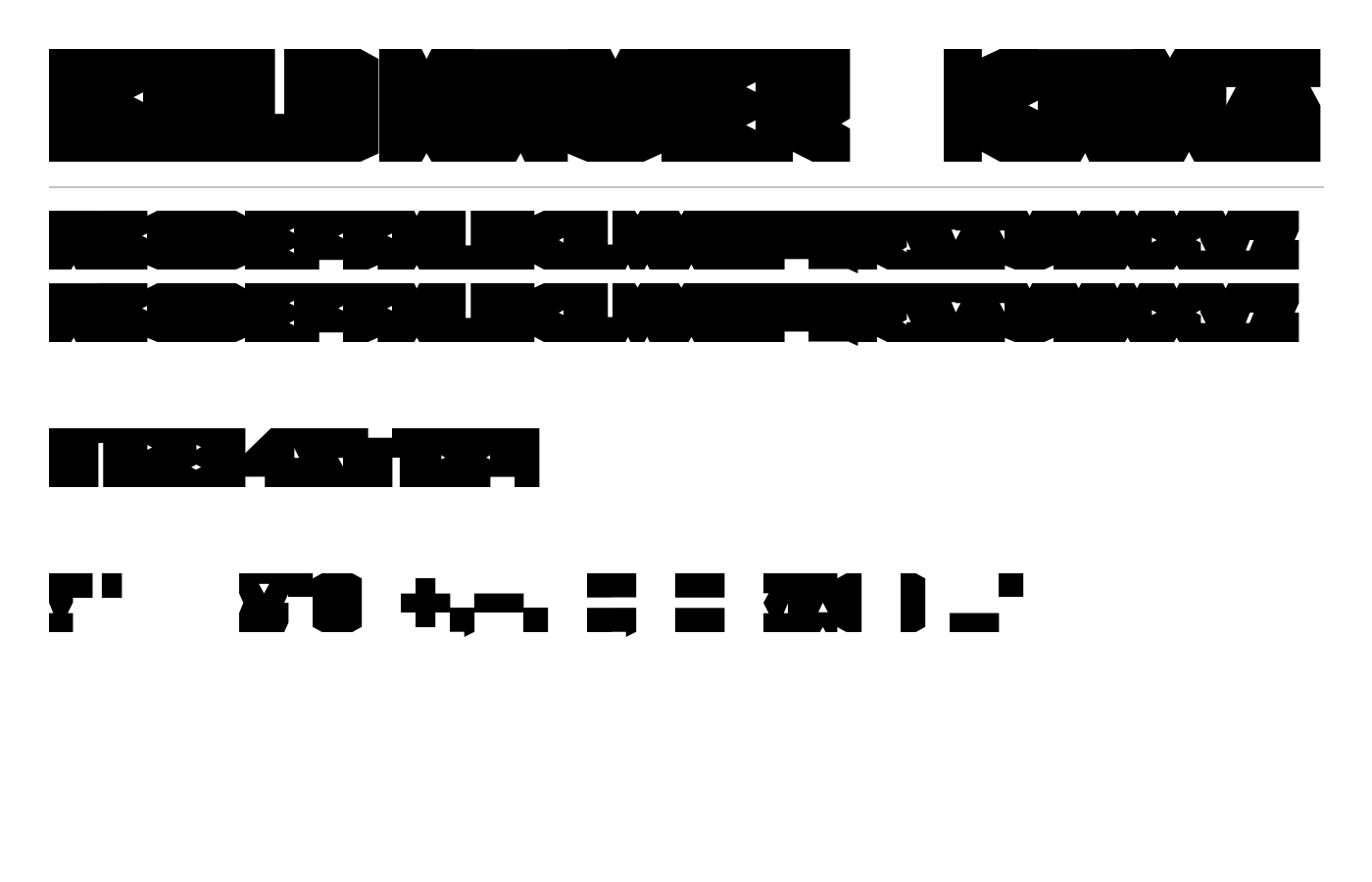
Bildhauer Kant is a bold, condensed sans serif font with a geometric and angular design that commands attention. Its high contrast and sharp edges give it a strong, modern, and industrial feel, making it perfect for striking headlines, logos, and display use where impact and clarity are essential. This font works well for brands seeking a powerful, contemporary aesthetic with a slightly edgy personality.
| Font family | Bildhauer Kant Font |
| Designer | Tobias Battenberg |